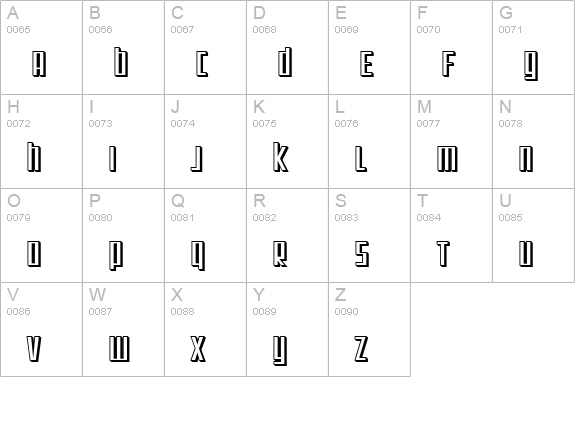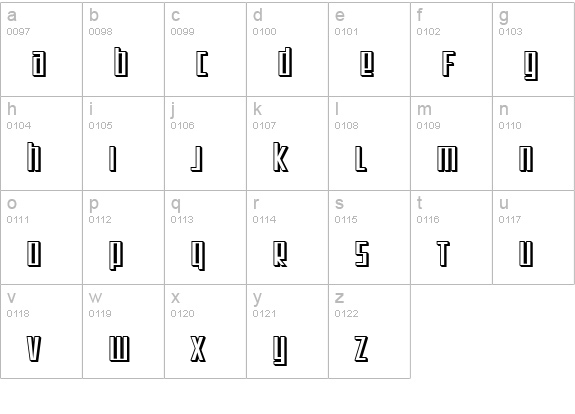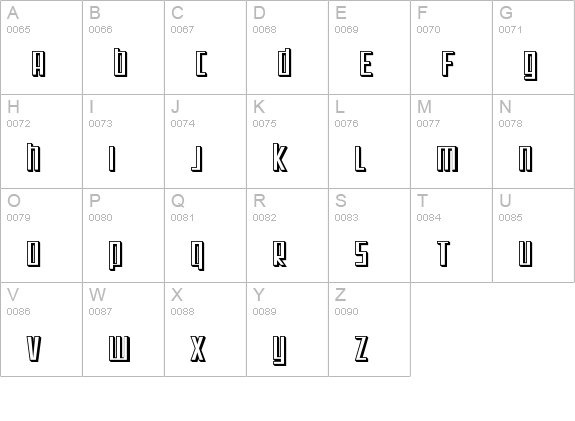
SF Square Root Shaded Font Details
Introducing SF Square Root Shaded font, a visually stunning typeface that combines the elegance of a square shape with the artistic touch of shaded elements. This font is perfect for projects that require a modern and edgy look, while still maintaining a sense of sophistication. With its unique design, SF Square Root Shaded font stands out from the crowd, making it a great choice for logos, headlines, posters, and more. The carefully crafted shading adds depth and dimension to each character, creating a visually striking effect. What makes SF Square Root Shaded font even more appealing is that it is freely available to download at FontsMarket.com. This means that you can effortlessly enhance your designs with this exceptional typeface without any cost. Whether you are a professional designer or just starting out, this font gives you the opportunity to elevate your work to the next level. The versatility of SF Square Root Shaded font allows it to be used in various design projects, from digital to print. Its clean lines and sharp edges make it highly legible, ensuring that your message is conveyed effectively. Whether you are designing a website, creating a branding package, or working on a magazine layout, this font will add a touch of sophistication to any project. With SF Square Root Shaded font, you have the freedom to experiment and explore different creative possibilities. Its bold and contemporary style makes it a perfect choice for projects that require a strong visual impact. From modern tech companies to fashion brands, this font will help you communicate your message with confidence and style. Don't miss out on the opportunity to elevate your designs with this visually stunning font. Download SF Square Root Shaded font for free at FontsMarket.com and unleash your creativity today.